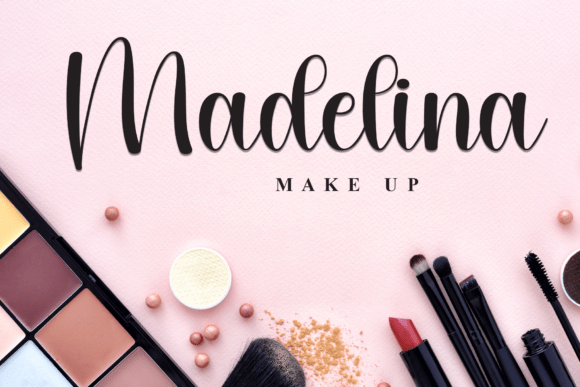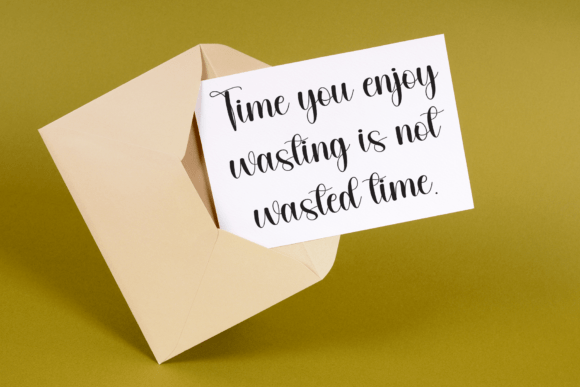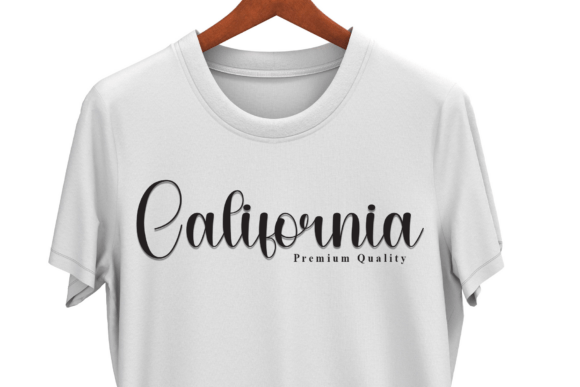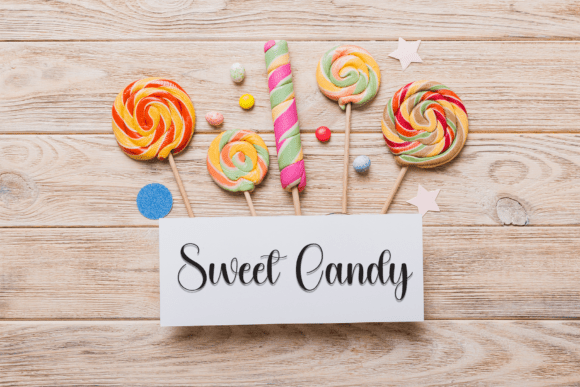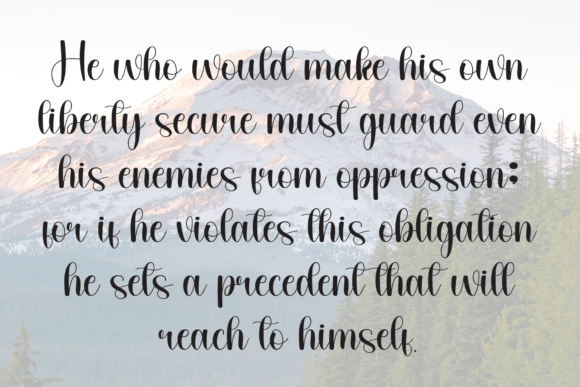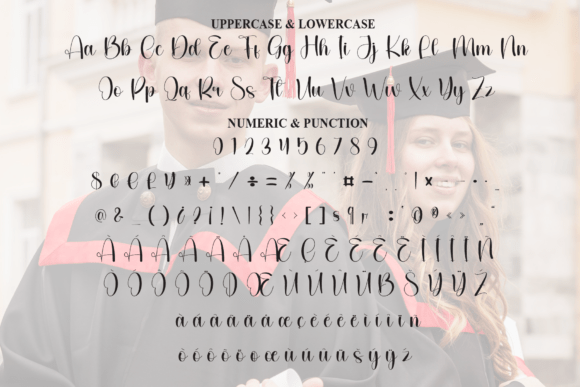
Introducing Graduation Font: The Elegant and Playful Script Font for Your Creative Projects
Are you looking for a font that can add a touch of elegance and playfulness to your designs? Look no further than Graduation Font, a stylish handwritten script font that is perfect for invitations, branding, social media, and more. With its flowing curves and natural rhythm, Graduation Font brings a personal and charming touch to any project, making it a must-have for designers and crafters.
The Characteristics of Graduation Font
Graduation Font is a beautifully designed script font that boasts a range of characteristics that make it stand out from the crowd. Its flowing curves and natural rhythm give it a sense of movement and fluidity, making it perfect for designs that require a touch of elegance and sophistication. The font’s handwritten script style adds a personal touch, making it ideal for invitations, greeting cards, and other personal projects.
One of the key features of Graduation Font is its ability to convey a sense of warmth and creativity. The font’s gentle curves and rounded edges give it a soft and approachable feel, making it perfect for designs that require a touch of whimsy and playfulness. Whether you’re designing a logo, creating a social media post, or crafting an invitation, Graduation Font is the perfect choice.
The Benefits of Using Graduation Font
So why choose Graduation Font for your next project? Here are just a few benefits of using this stylish script font:
- Elegance and sophistication: Graduation Font adds a touch of elegance and sophistication to any design, making it perfect for high-end branding and luxury projects.
- Personal touch: The font’s handwritten script style adds a personal touch, making it ideal for invitations, greeting cards, and other personal projects.
- Warmth and creativity: Graduation Font’s gentle curves and rounded edges give it a soft and approachable feel, making it perfect for designs that require a touch of whimsy and playfulness.
- Versatility: Graduation Font is perfect for a range of projects, from invitations and branding to social media and more.
How to Use Graduation Font in Your Designs
Graduation Font is easy to use and can be incorporated into a range of designs. Here are a few ideas to get you started:
- Invitations: Use Graduation Font to create beautiful and elegant invitations for weddings, parties, and other special occasions.
- Branding: Graduation Font is perfect for branding projects that require a touch of elegance and sophistication.
- Social media: Use Graduation Font to create eye-catching social media posts that stand out from the crowd.
- Stationery: Graduation Font is perfect for creating beautiful stationery, including greeting cards, thank you cards, and more.
Tips and Tricks for Getting the Most Out of Graduation Font
Here are a few tips and tricks for getting the most out of Graduation Font:
- Experiment with different sizes and colors: Graduation Font looks great in a range of sizes and colors, so don’t be afraid to experiment and find the perfect combination for your design.
- Pair with other fonts: Graduation Font pairs well with a range of other fonts, so try pairing it with a bold font for a striking contrast.
- Use it sparingly: Graduation Font is a statement font, so use it sparingly to add a touch of elegance and sophistication to your design.
In conclusion, Graduation Font is a stylish and elegant script font that is perfect for designers and crafters looking to add a touch of elegance and playfulness to their projects. With its flowing curves and natural rhythm, Graduation Font brings a personal and charming touch to any design, making it a must-have for anyone looking to create beautiful and eye-catching designs.